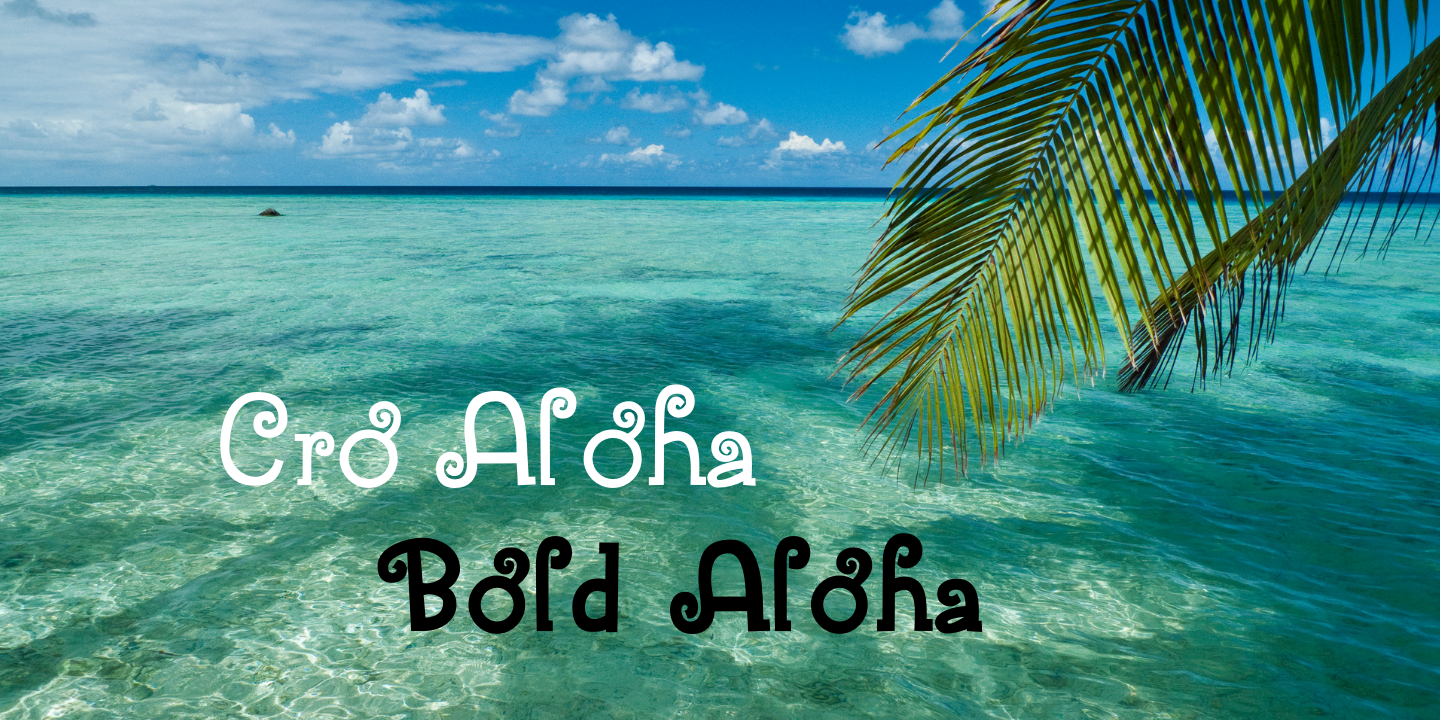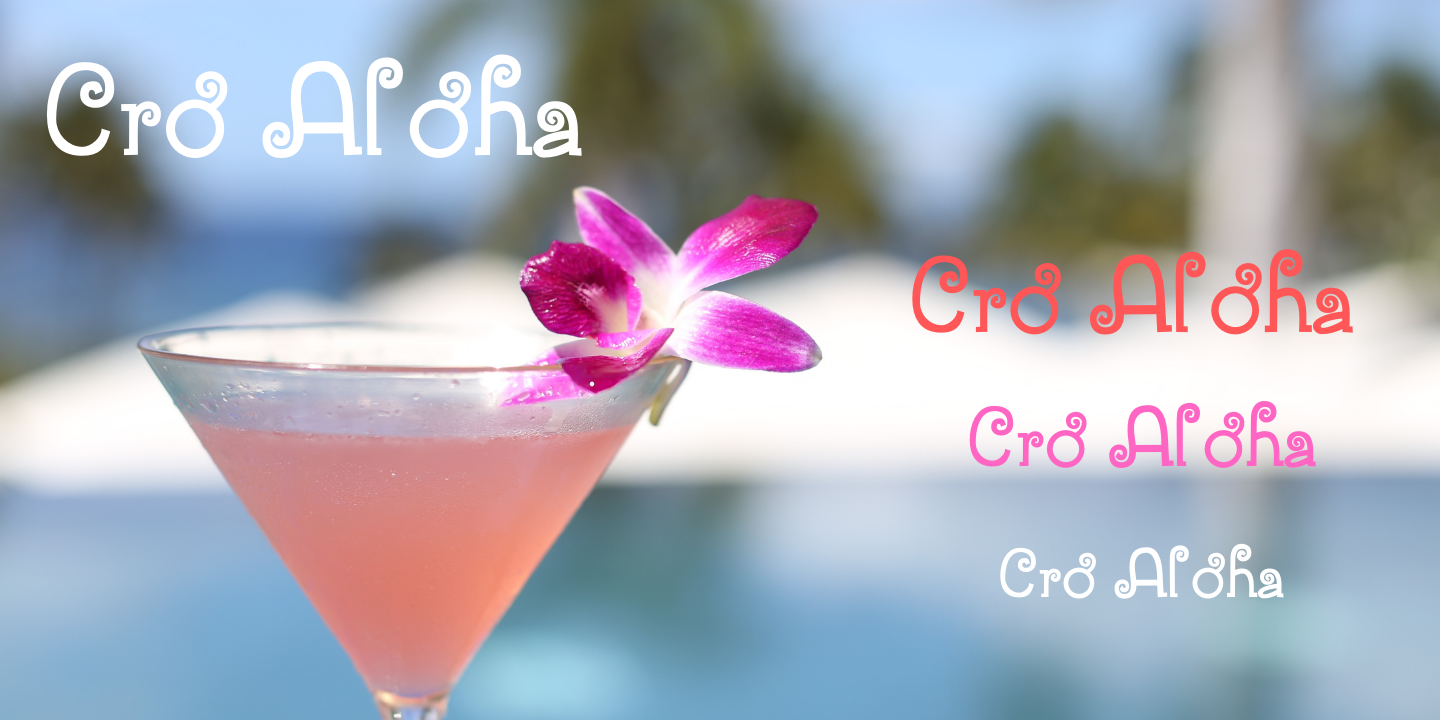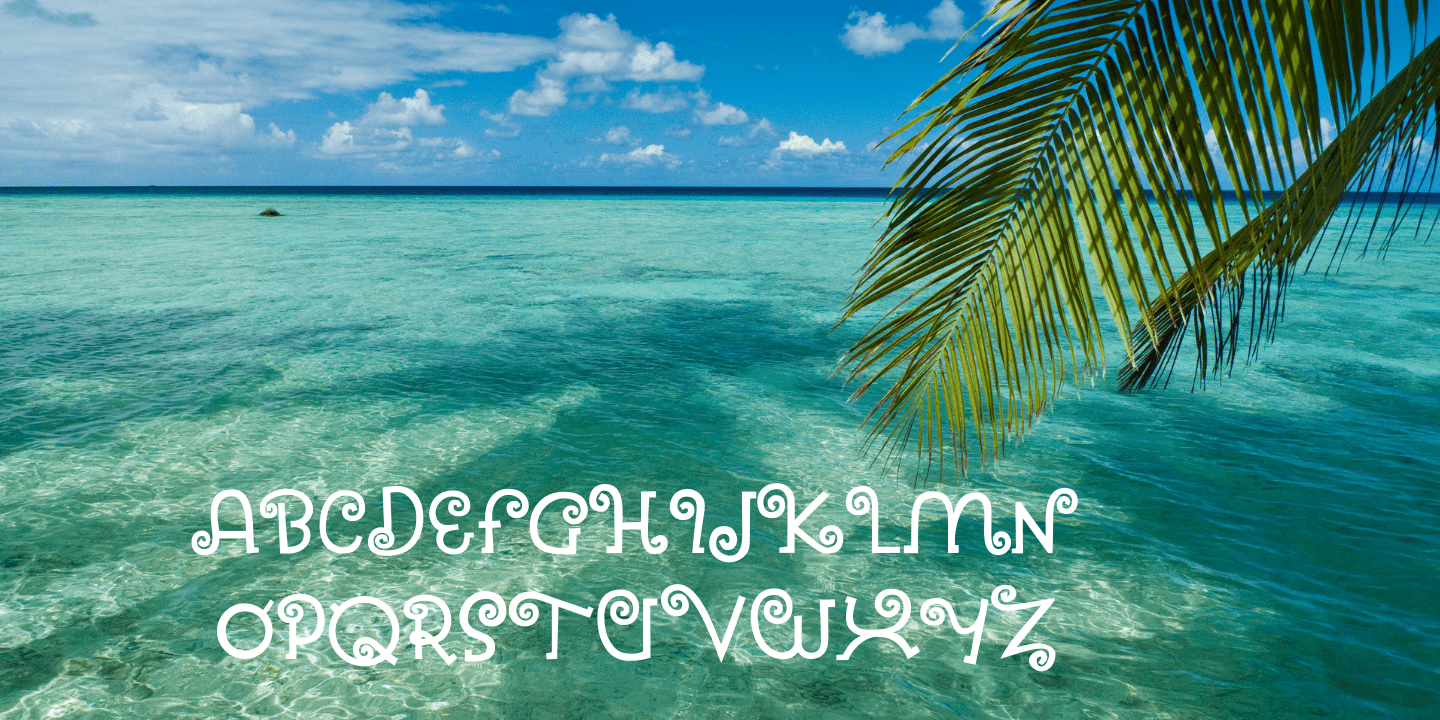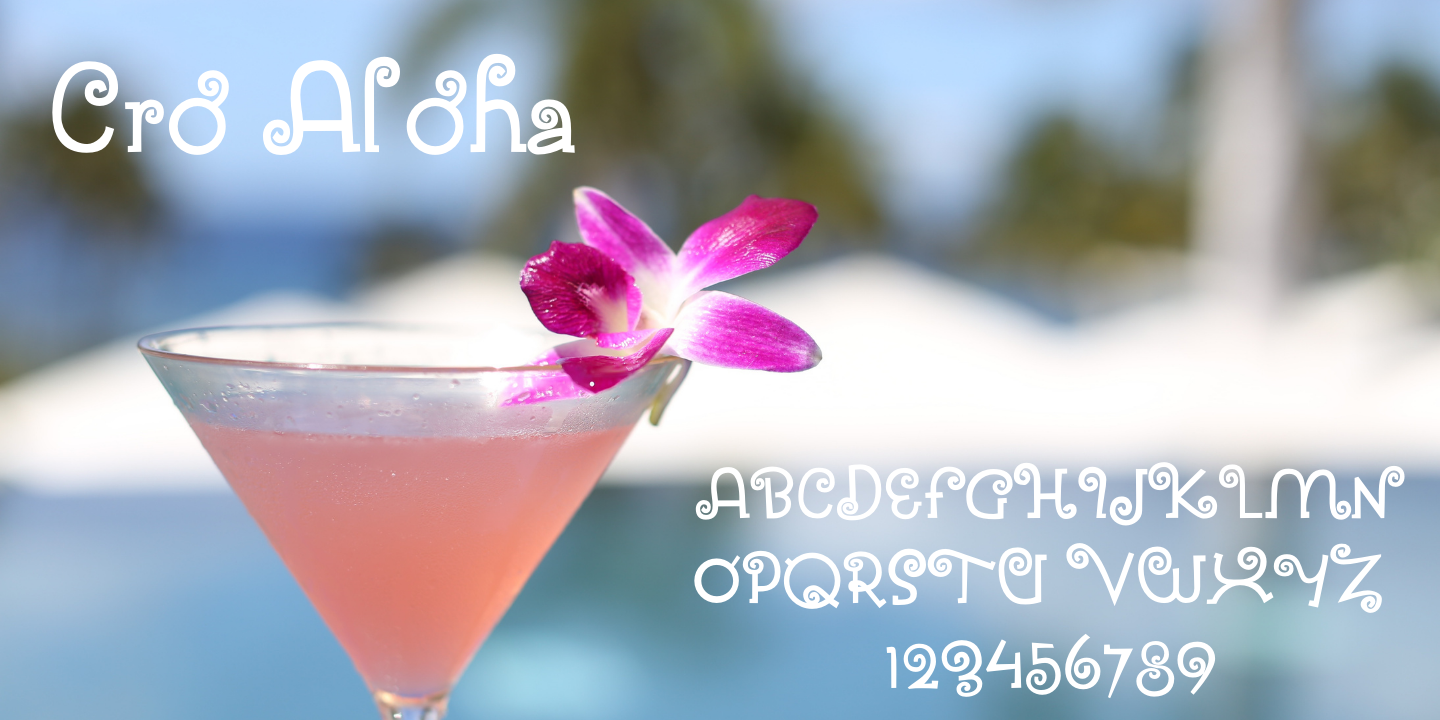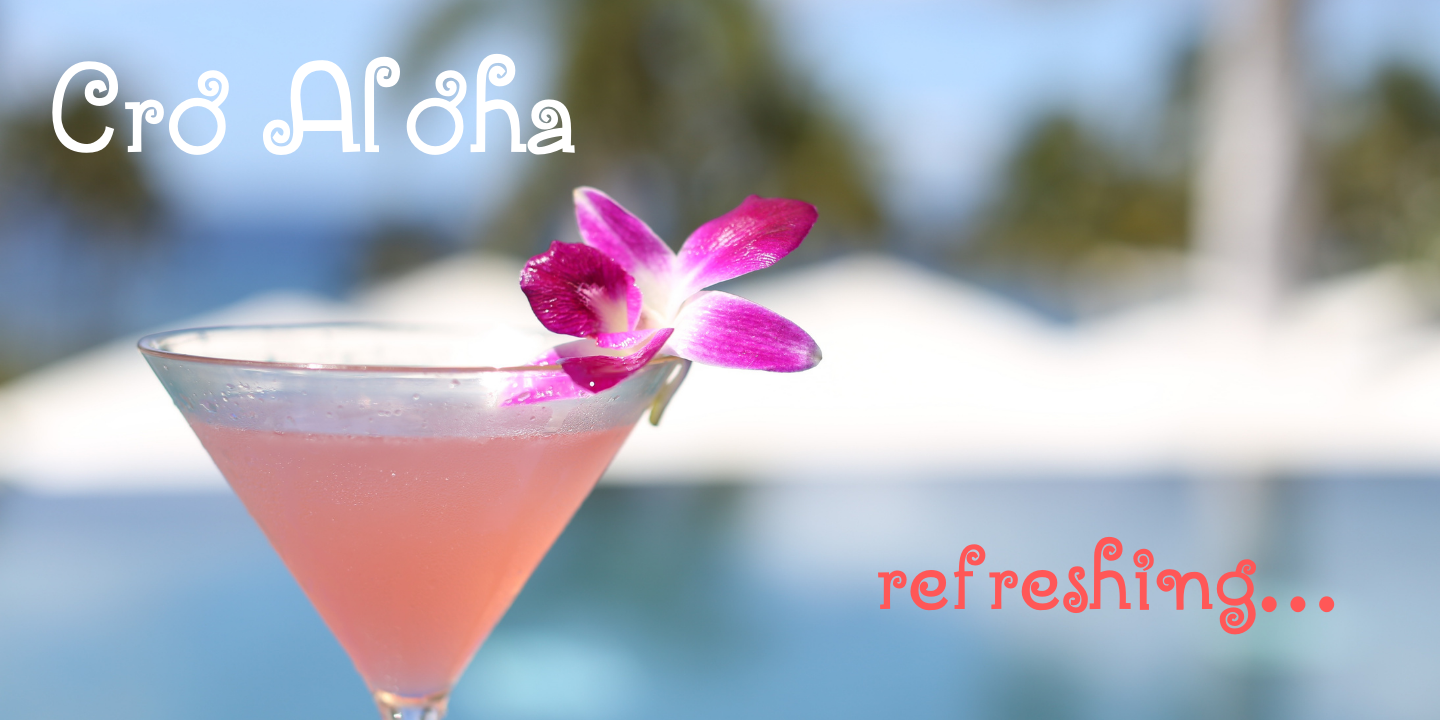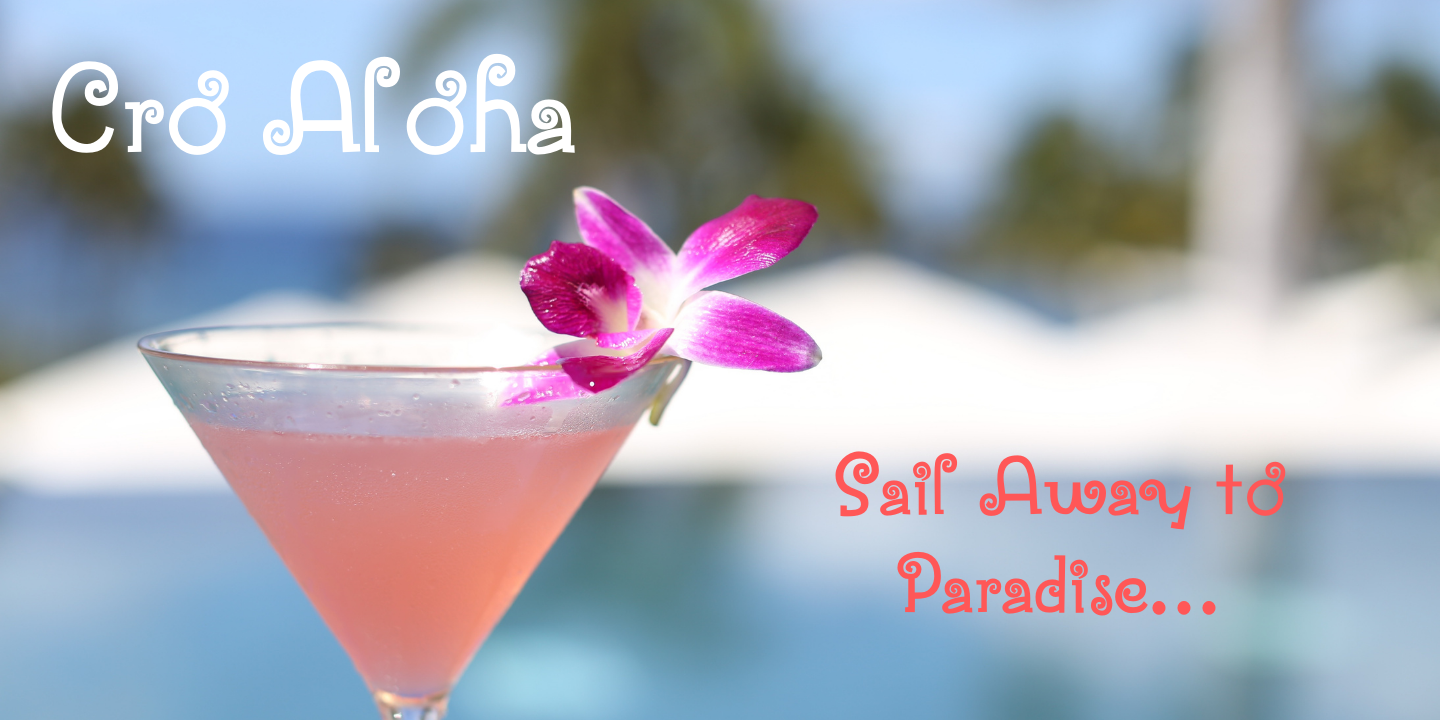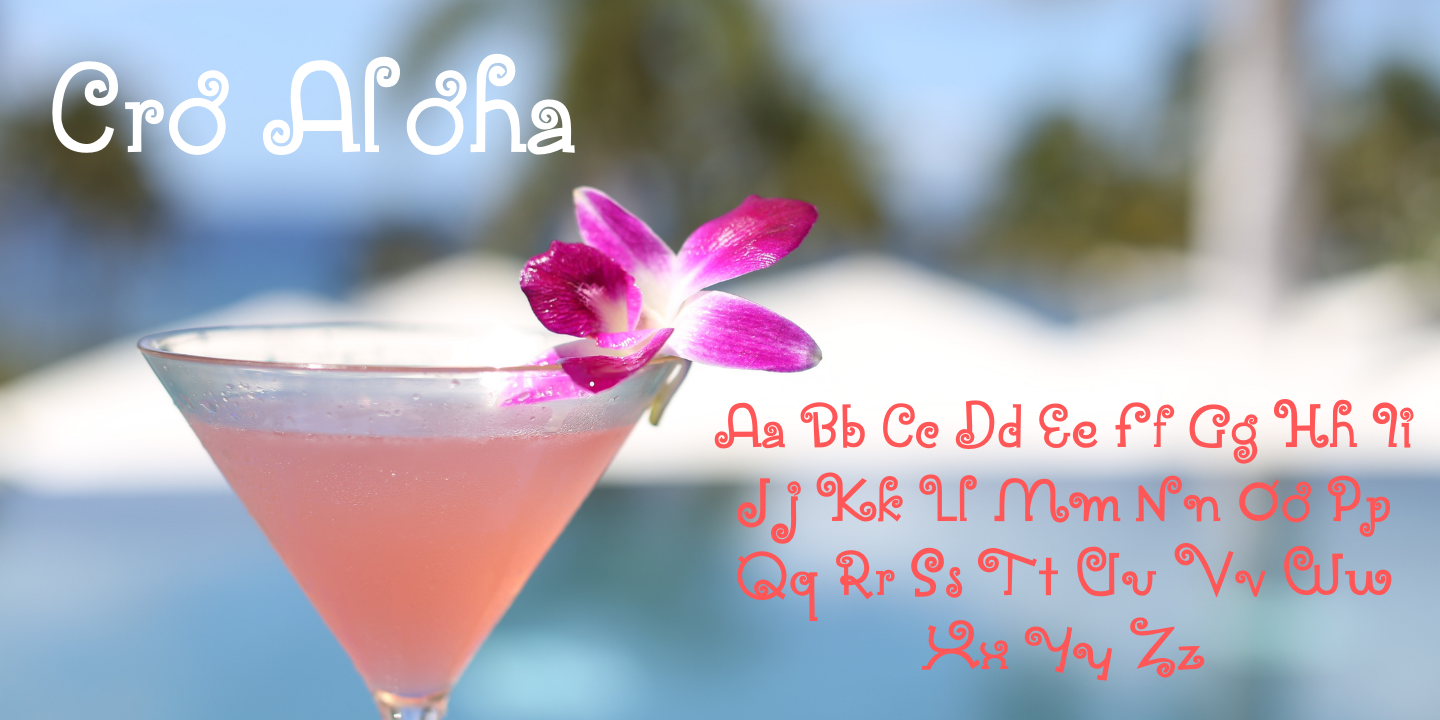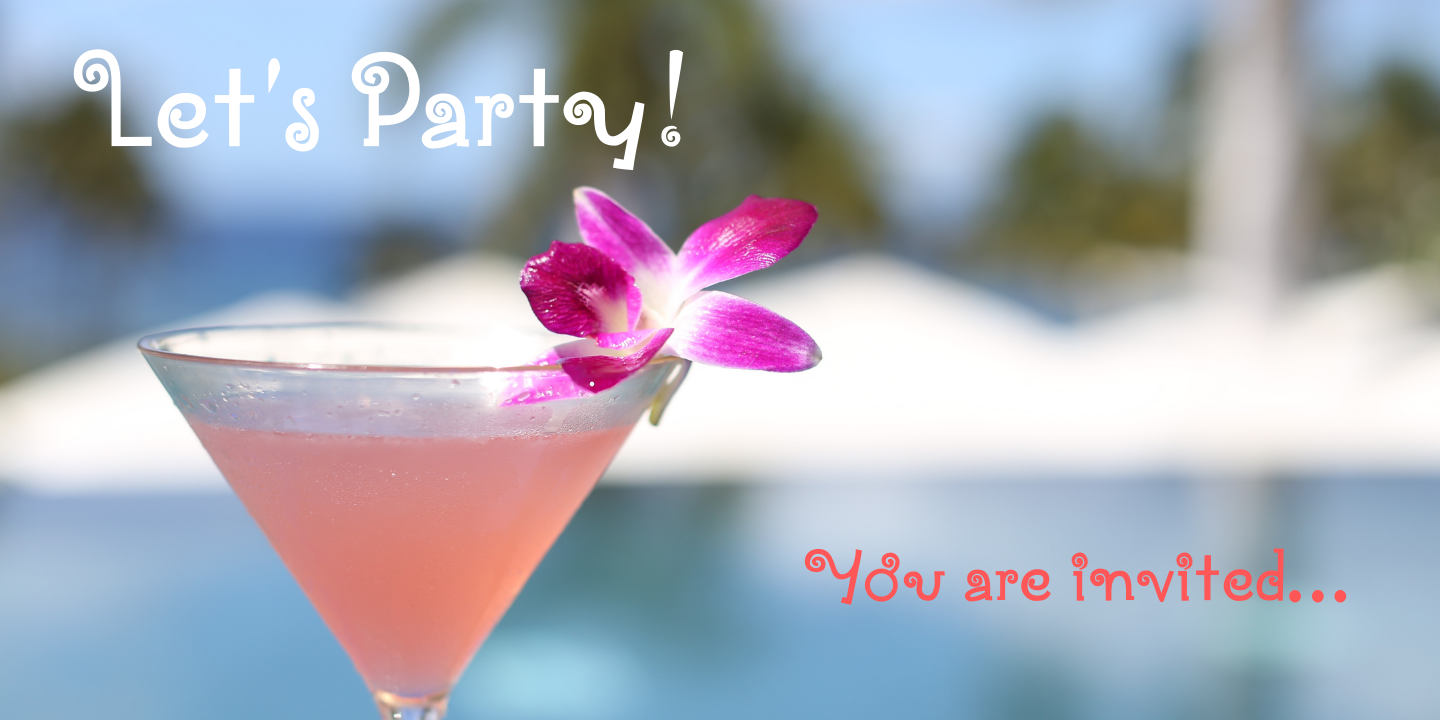
From Woodrow Phoenix
About Woodrow Phoenix
A trained typographer, Phoenix was a letterer in the 1980s for most of the UK's comics publishers, including Escape, Fleetway, Dark Horse UK, Toxic and Acme. He also lettered graphic novels for Gollancz and Methuen.
Phoenix's work is graphic and playful, while noted for its high degree of formal experimentation.